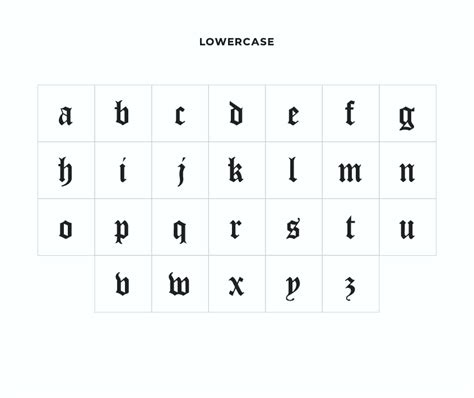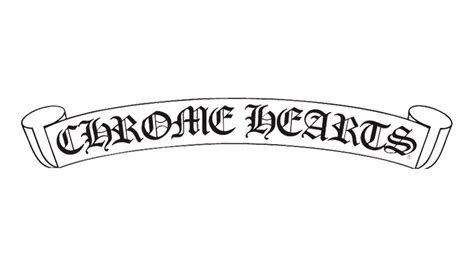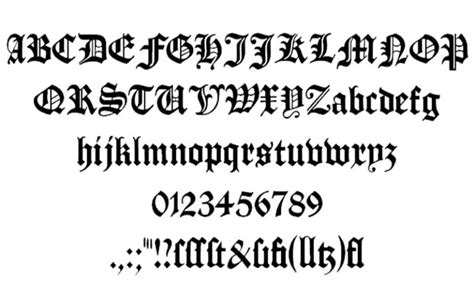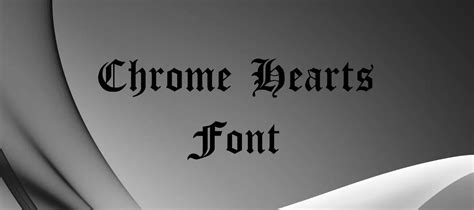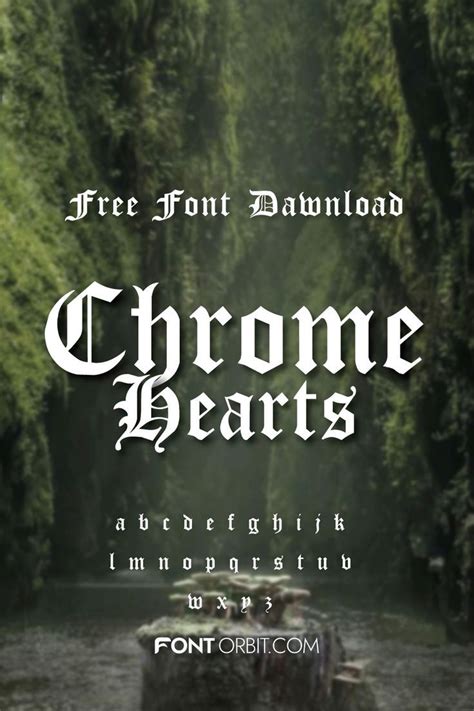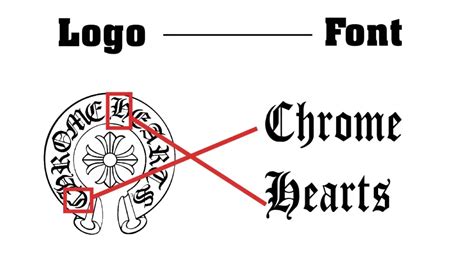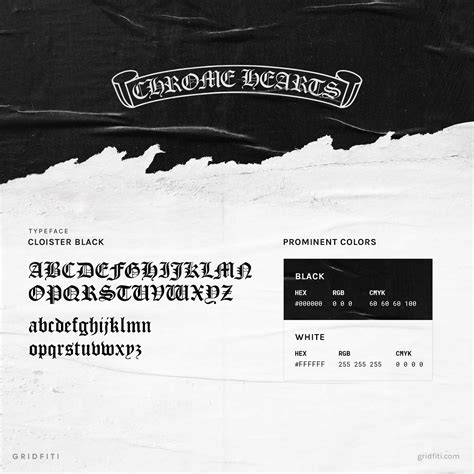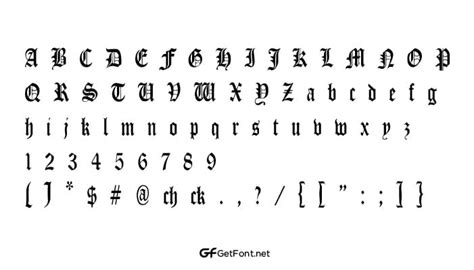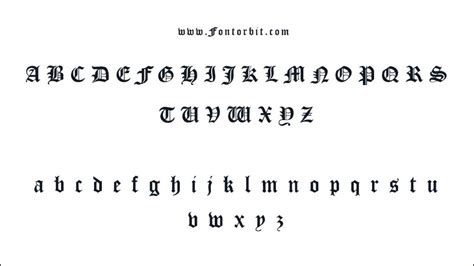
The chrome hearts font is a distinctive and popular font style that has gained recognition for its unique appearance and versatility. This font is characterized by its bold and edgy aesthetic, featuring a mix of curved and sharp lines that create a visually striking effect. With its modern and contemporary feel, it has become a favorite among designers and creators looking to add a touch of individuality to their projects.
One of the key benefits of the chrome hearts font is its ability to stand out and capture attention. The font's bold and unconventional design makes it ideal for headings, logos, and titles where making a strong visual impact is essential. Its versatility also allows it to be used in various contexts, from fashion and branding to digital interfaces and print media.